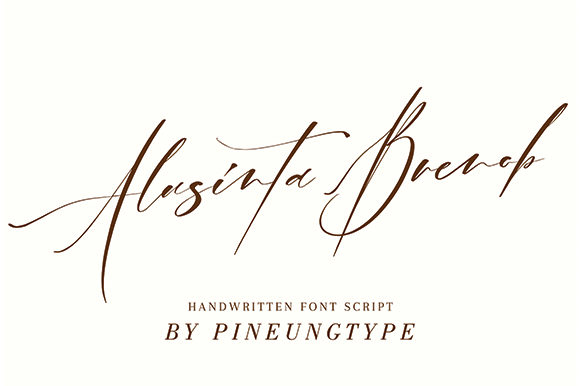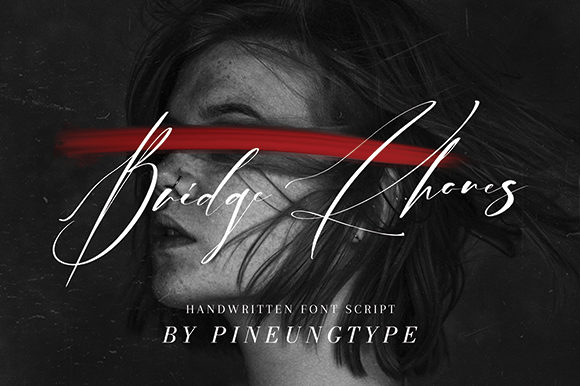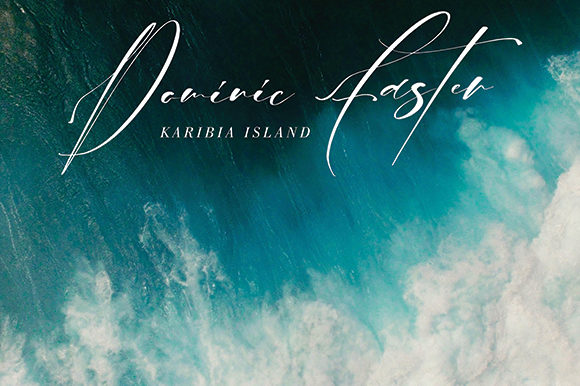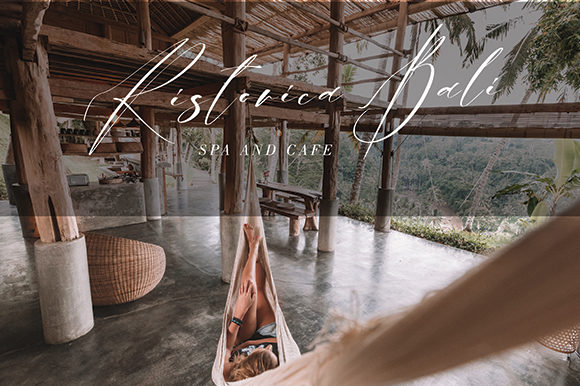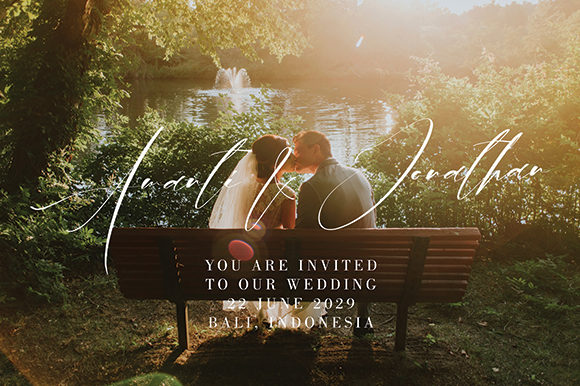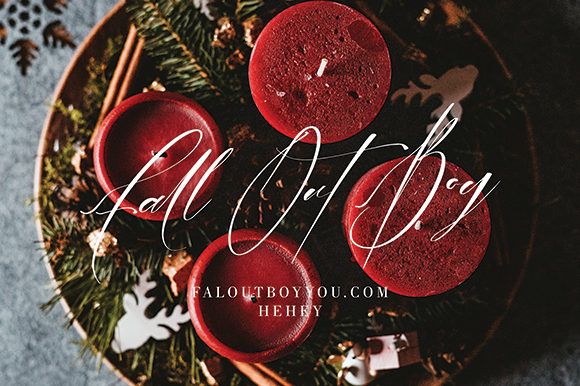
Alusinta Brenob Font
About Alusinta Brenob Font
Alusinta Brenob is an elegant handwritten font.
Use this font to make your projects look clean and professional.
Perfect for wedding invitations, signatures, post cards and much more.